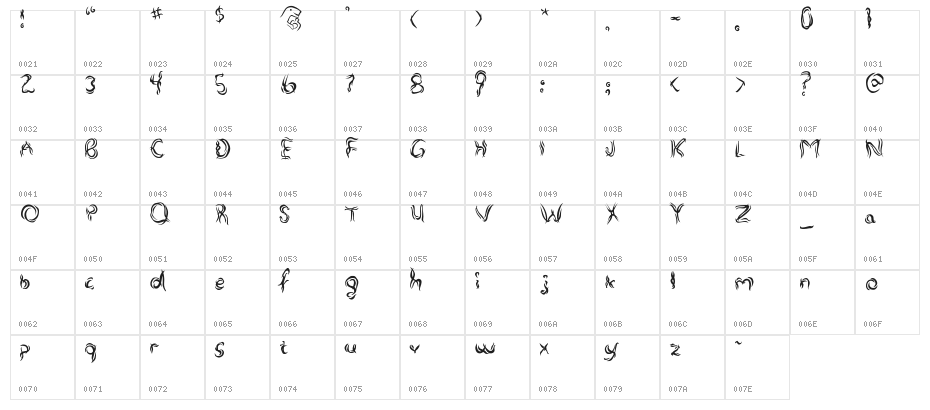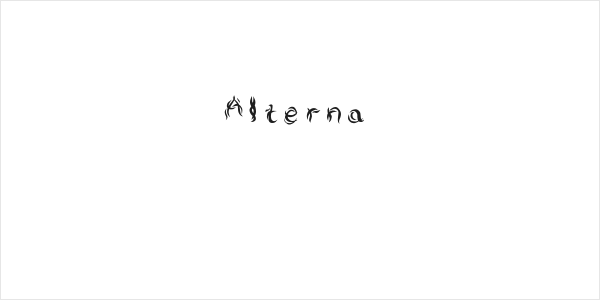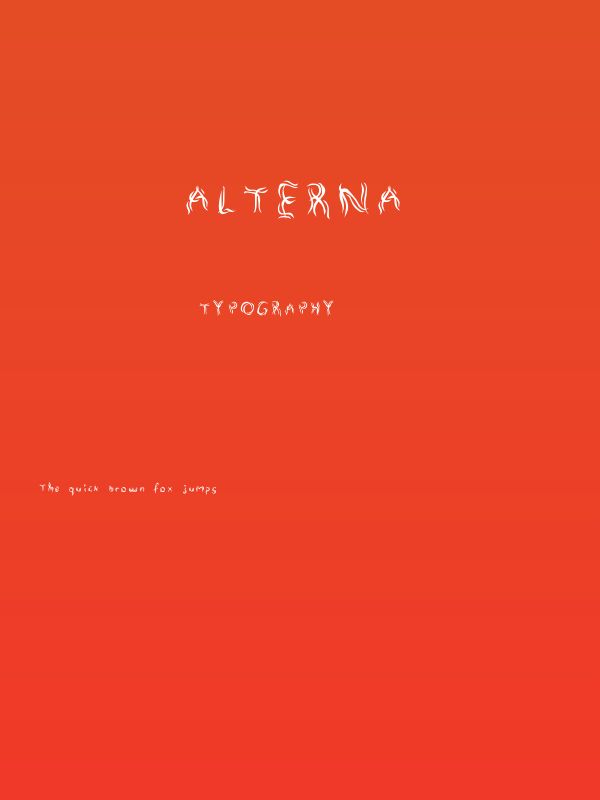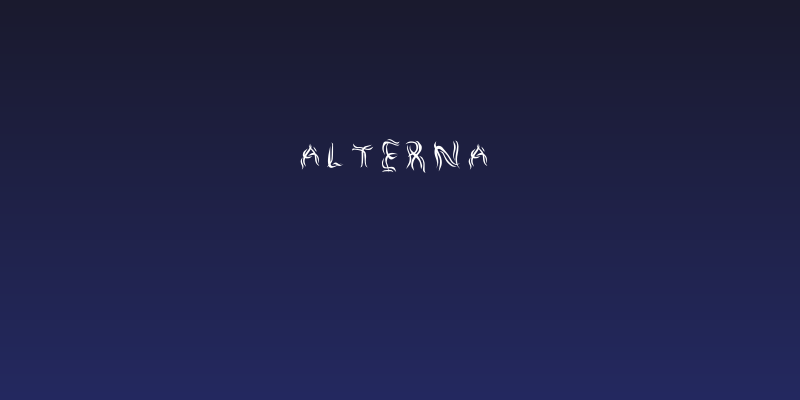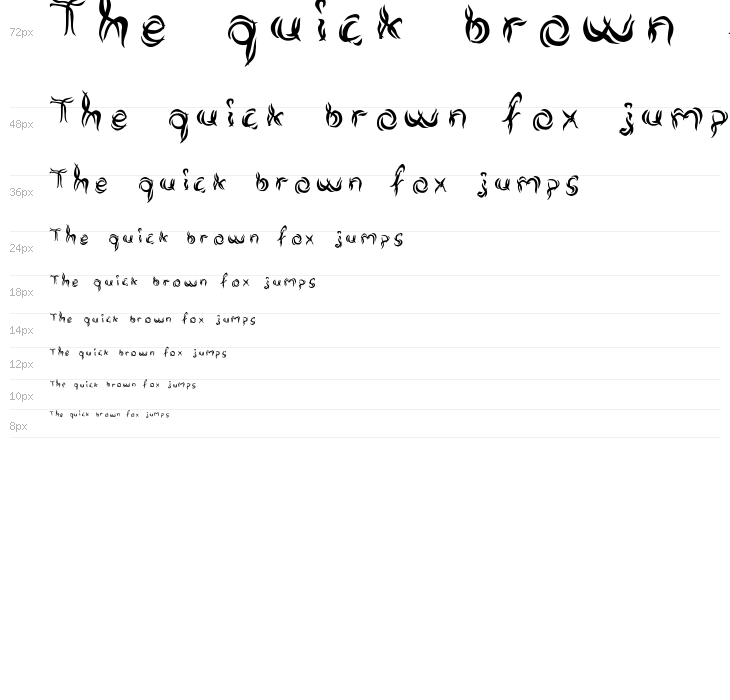
Alterna Font
Alterna Description
This font features a highly decorative and artistic style, characterized by intricate, swirling patterns that resemble vines or flames. Each character is uniquely crafted with elaborate curves and pointed edges, giving it a dynamic and energetic appearance. The uppercase and lowercase letters maintain a consistent theme, while the numbers and special characters are equally ornate. This font's distinct style makes it stand out, offering a sense of movement and flair. It is ideal for projects that require a bold and artistic touch, capturing attention with its unique aesthetic.
| Proposed Projects | Ideal for album covers, fantasy-themed posters, tattoo designs, and artistic branding. |